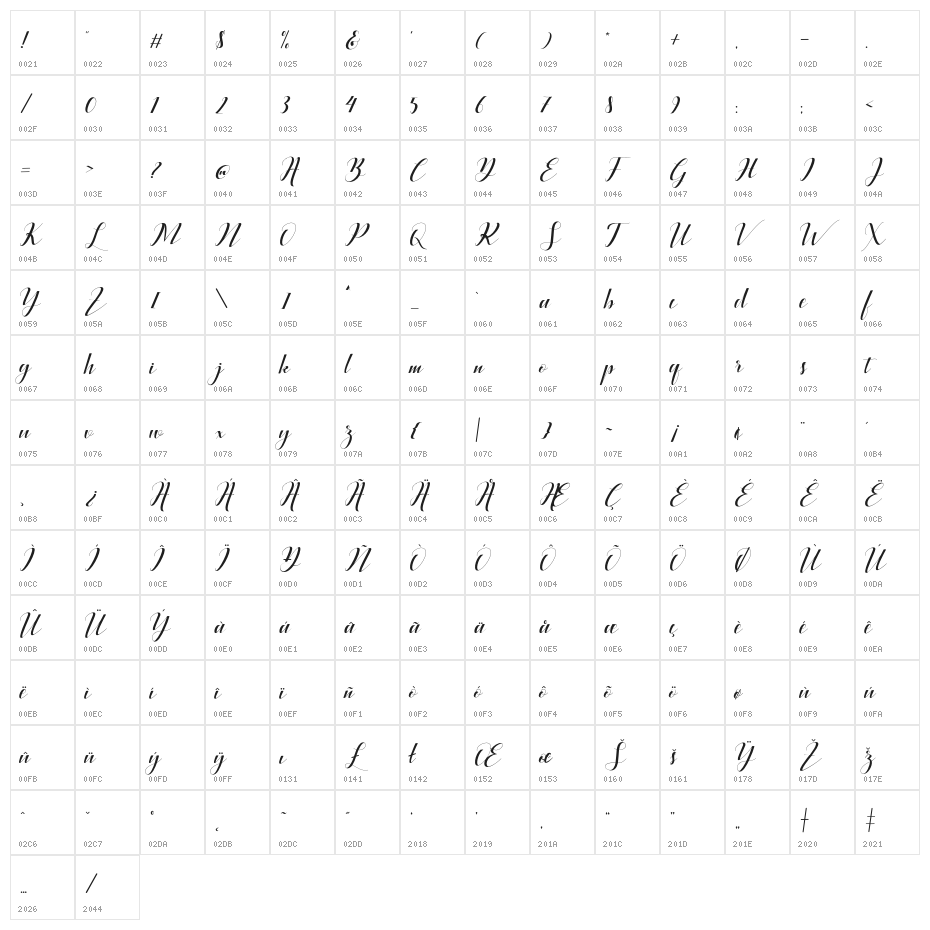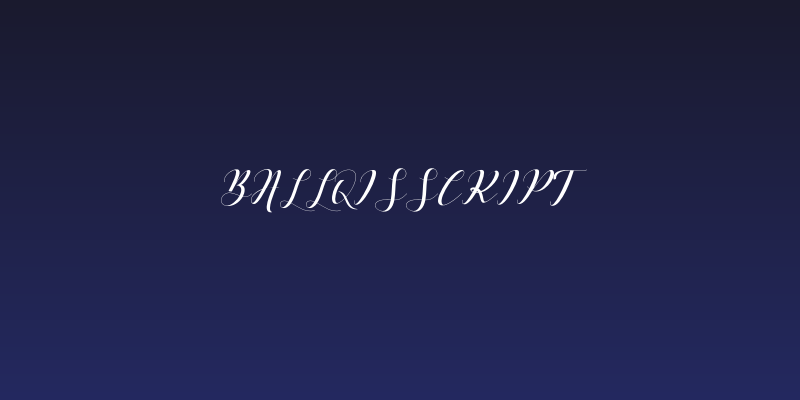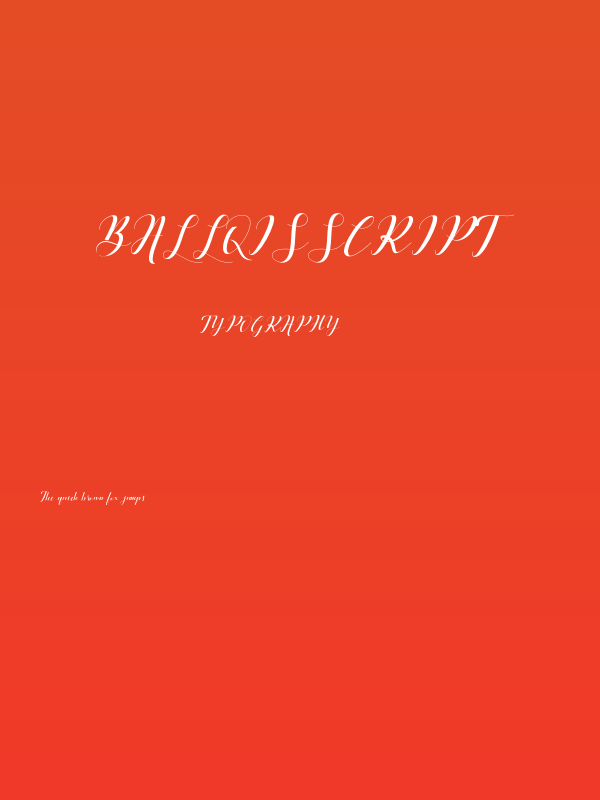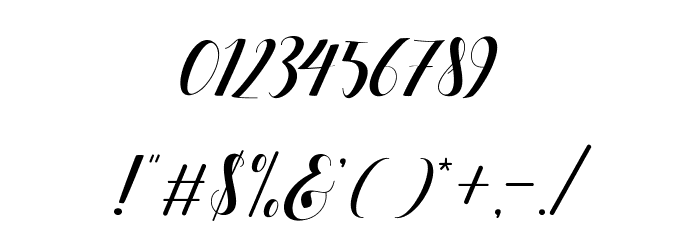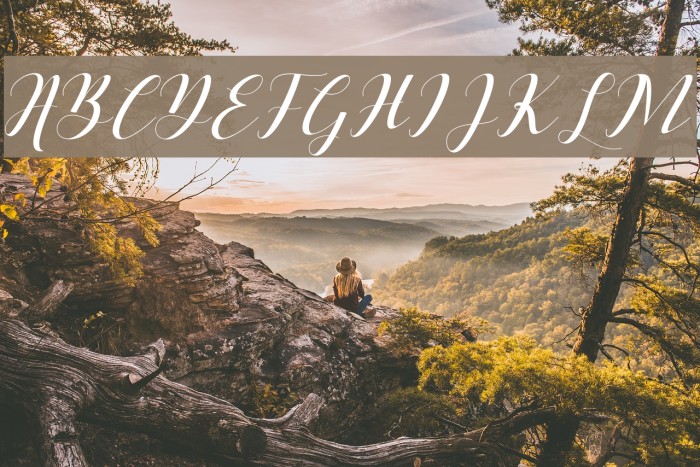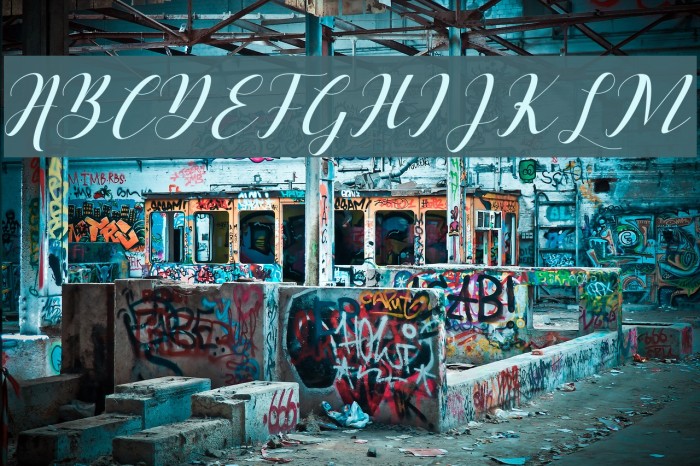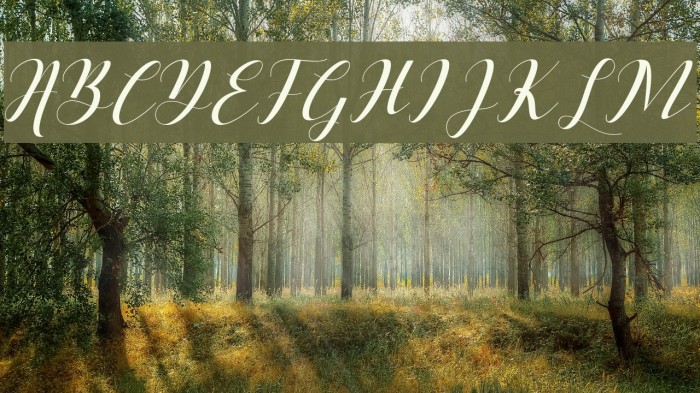
BallqisScript Font
BallqisScript Description
This elegant script font features flowing, cursive letters with a sophisticated and artistic flair. The uppercase characters are ornate, with sweeping lines and flourishes that add a touch of luxury and refinement. The lowercase letters maintain a consistent style, offering a harmonious blend of curves and loops that enhance readability while retaining a decorative appeal. The numerals are styled to match the overall aesthetic, ensuring a cohesive look across all characters. Special characters are thoughtfully designed to complement the script, making it suitable for a variety of creative applications.
| Overall Style | Elegant |
| Use Case | Logos, Invitations, Decorative text |
| Proposed Projects | Ideal for wedding invitations, elegant branding, luxury packaging, and artistic projects. |